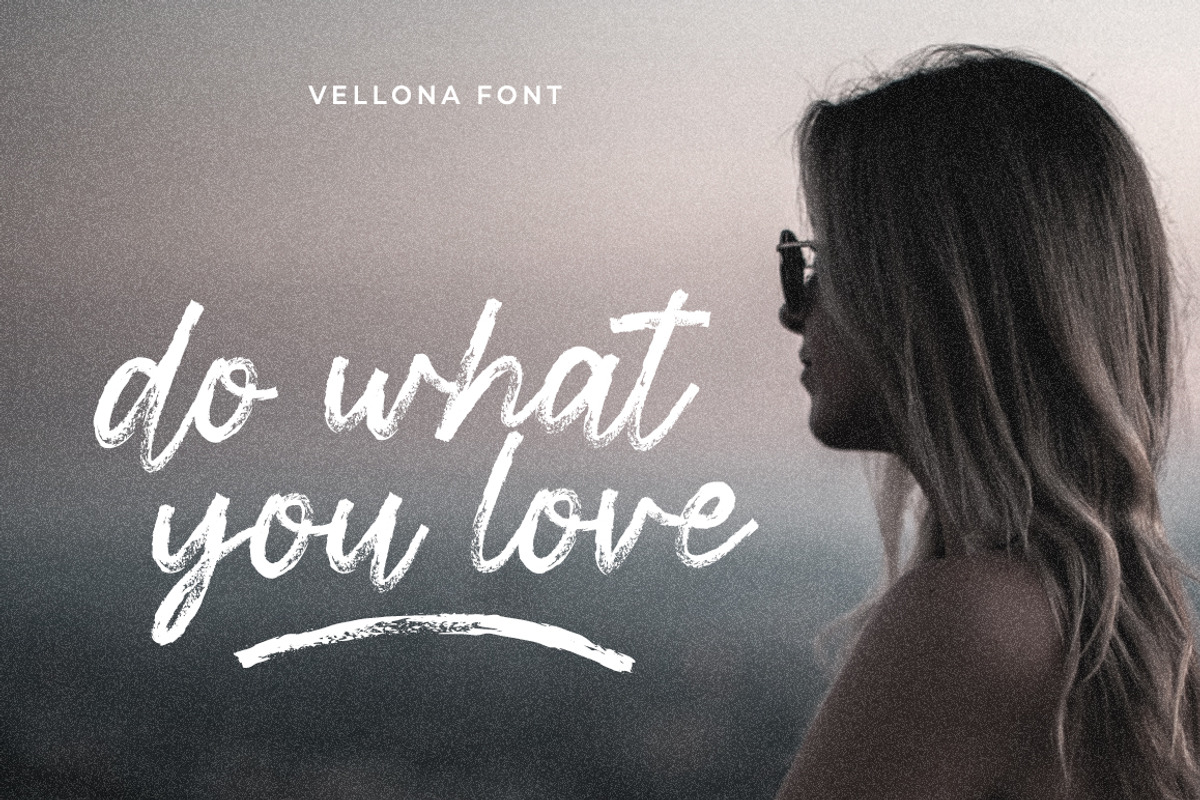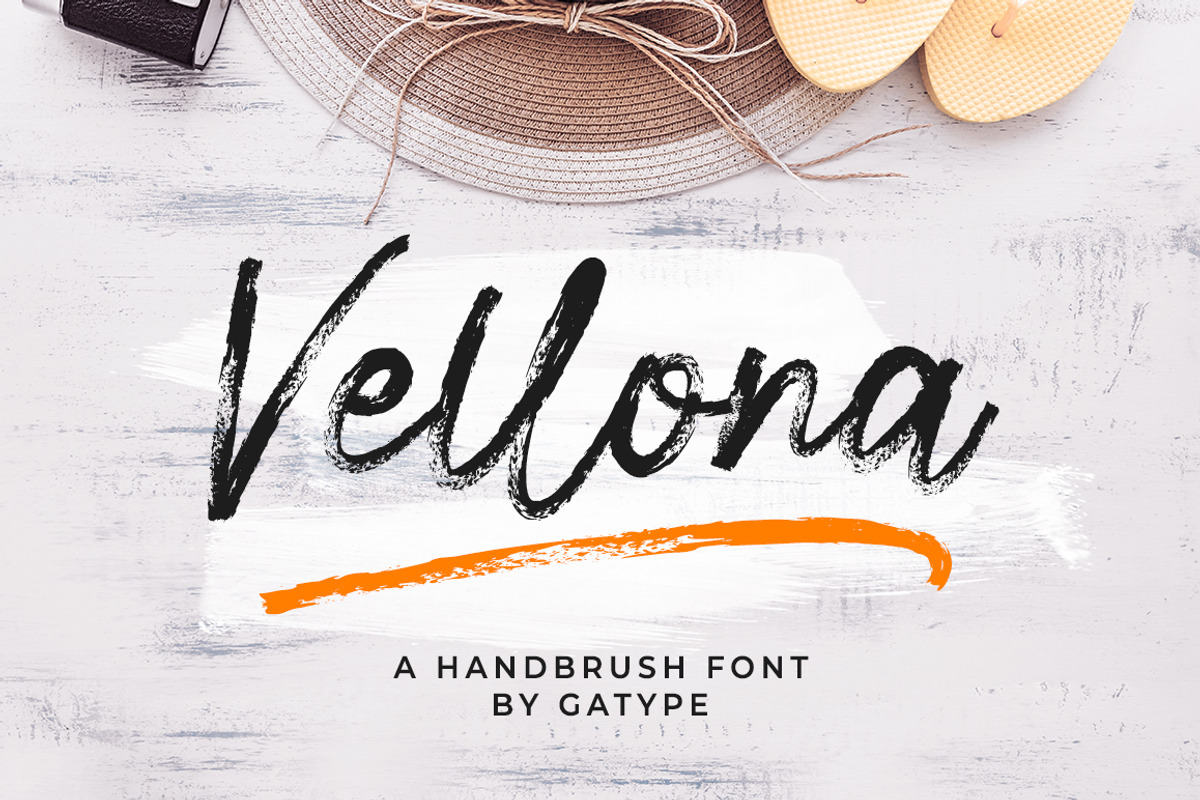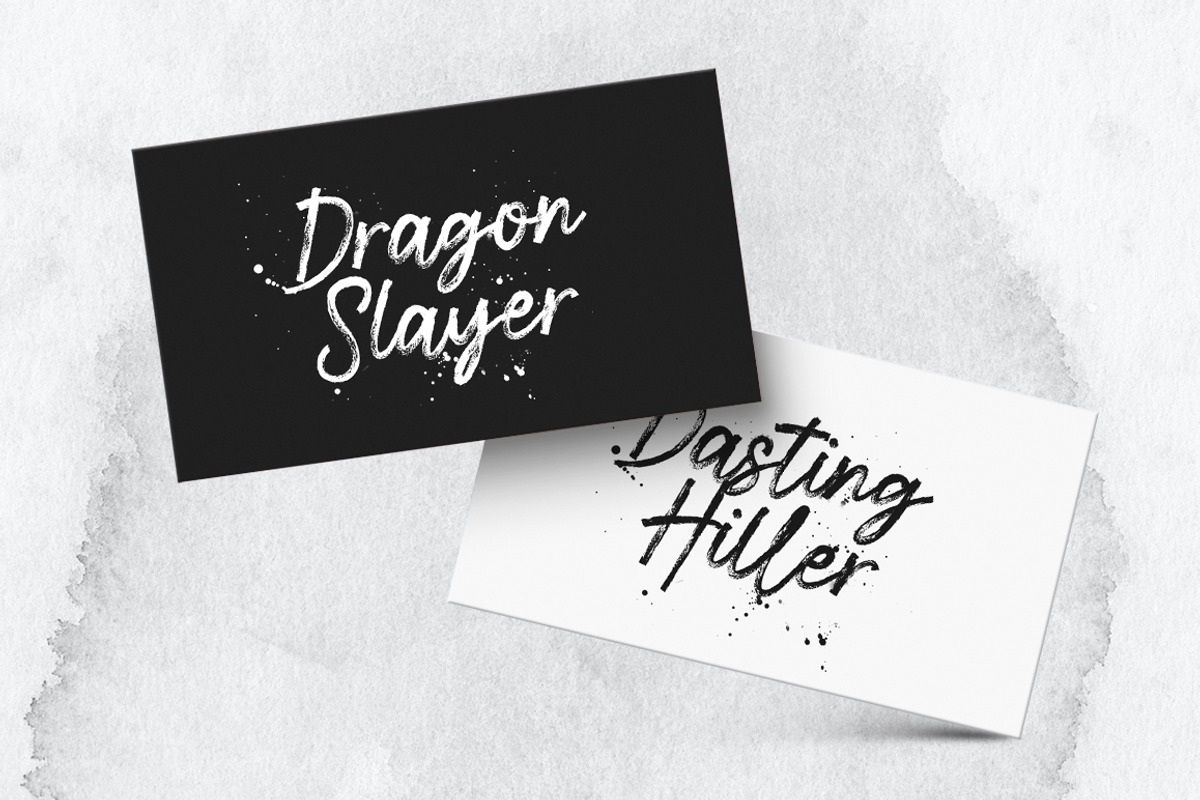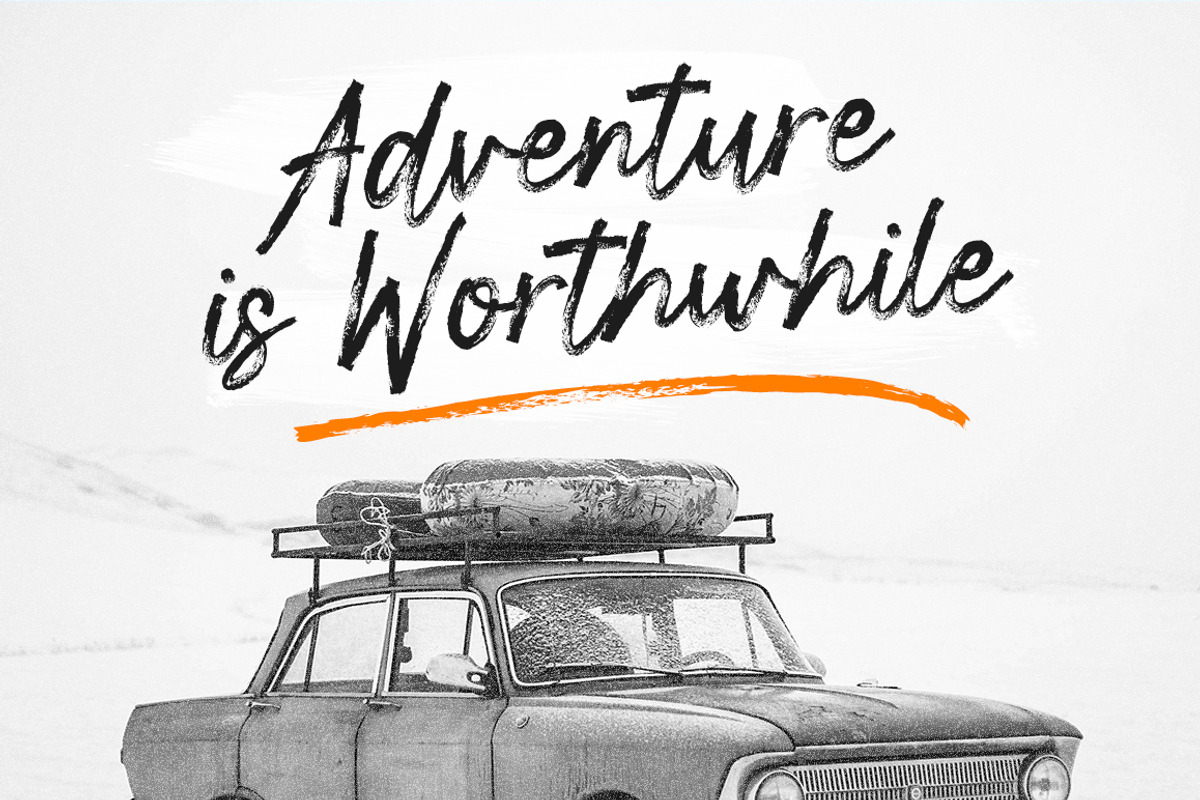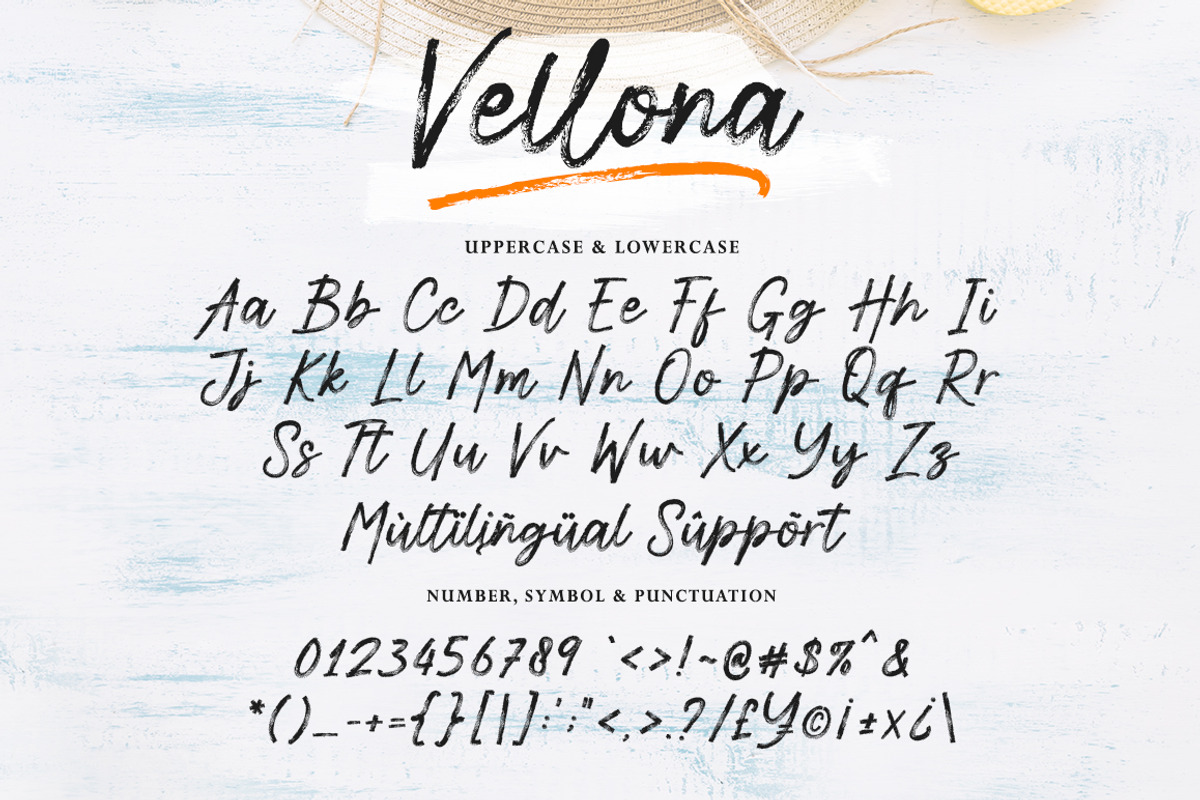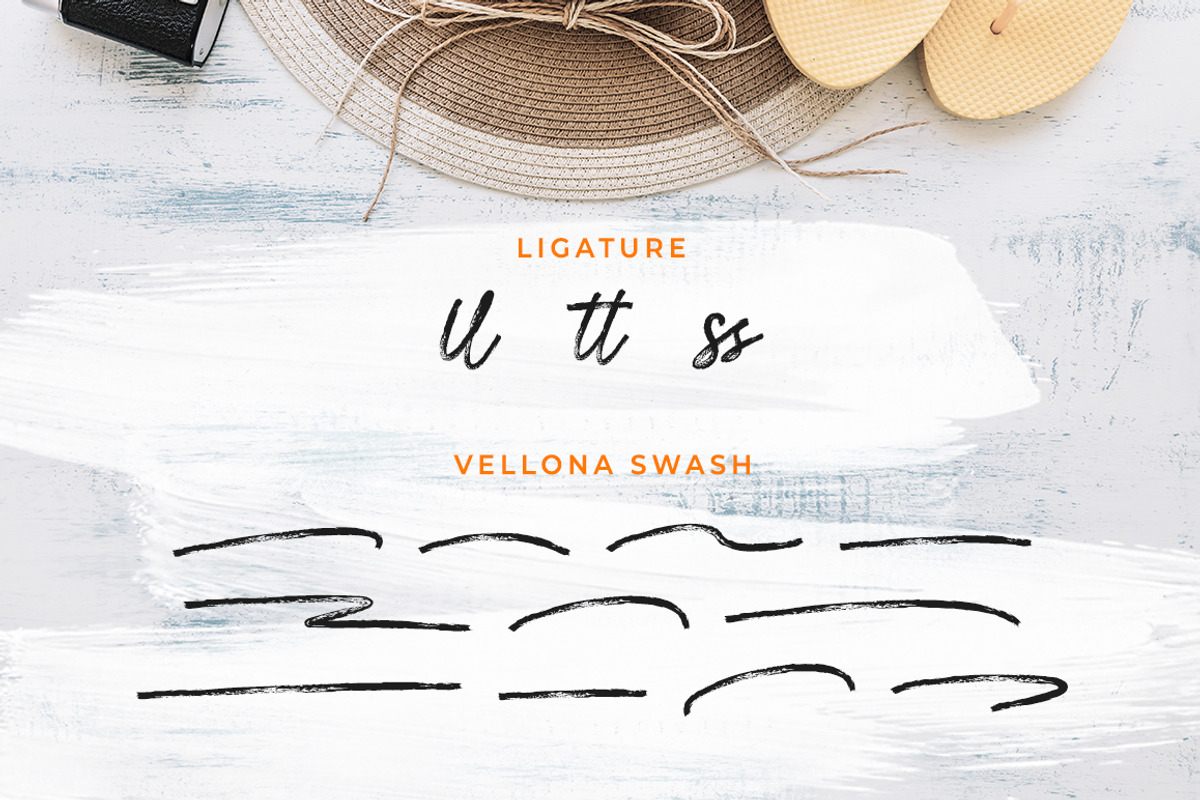
Vellona
Vellona is a really cool handcrafted brush font deliberately created with a natural texture finish, it is perfect for invitations, brand projects, logos, greeting cards, news, web, product packaging, posters, blogs, everything including personal charm, etc.